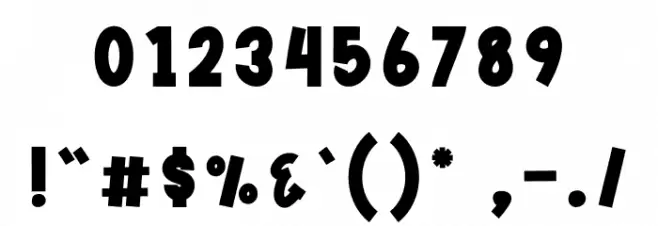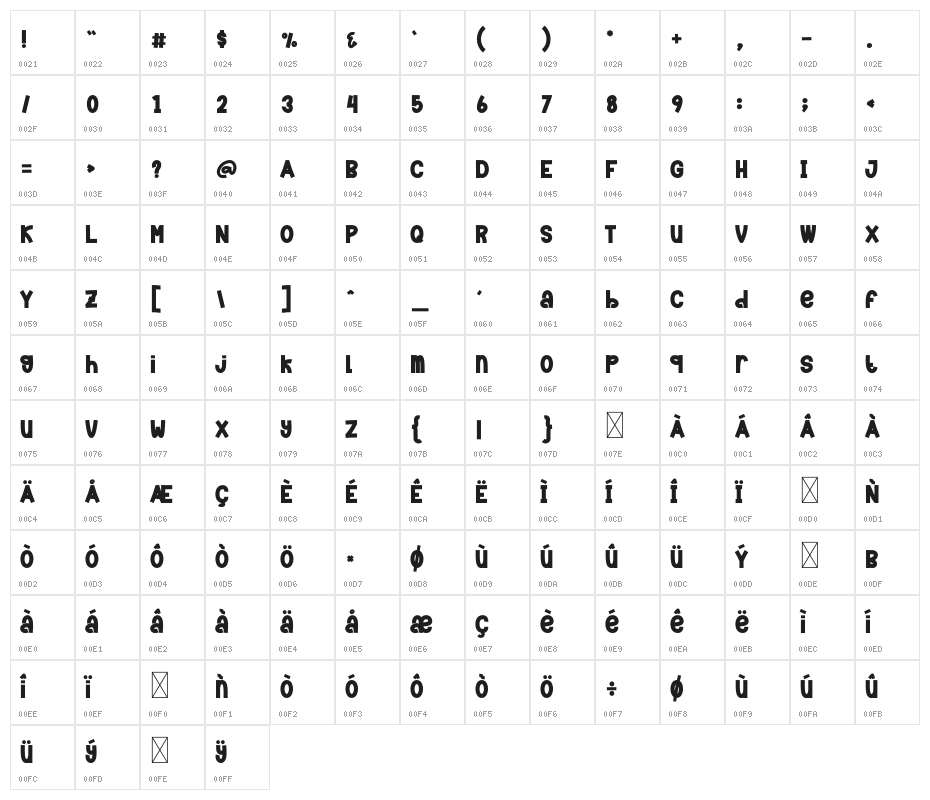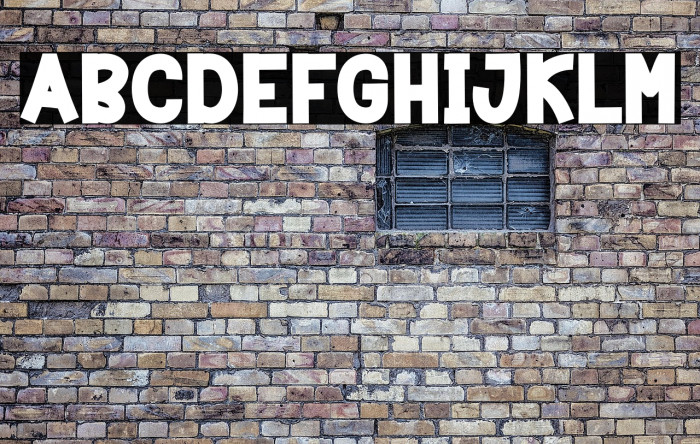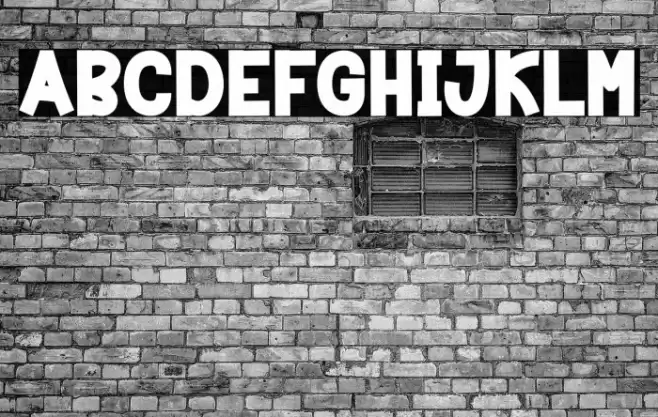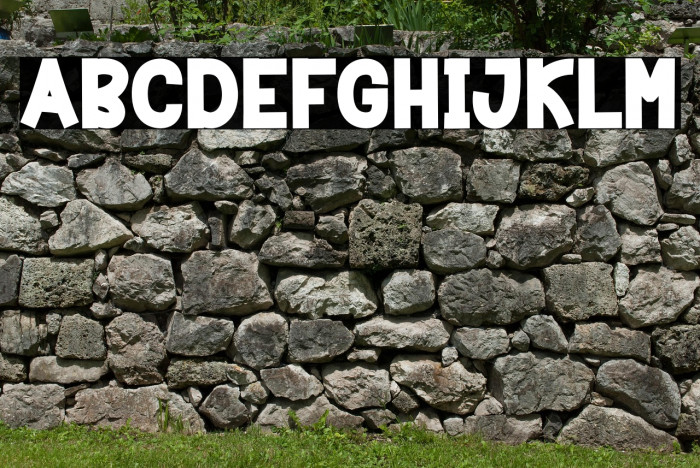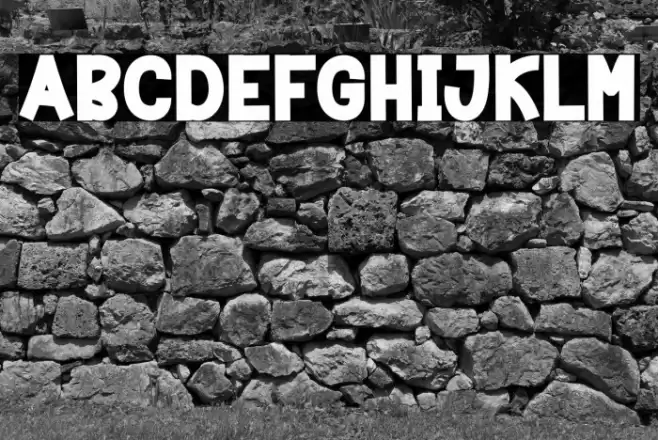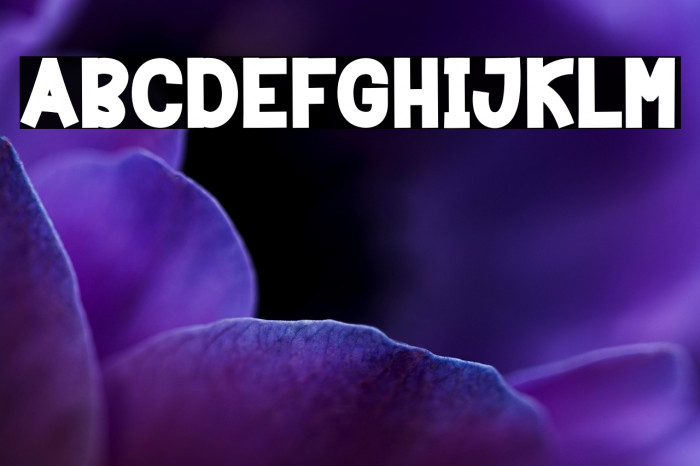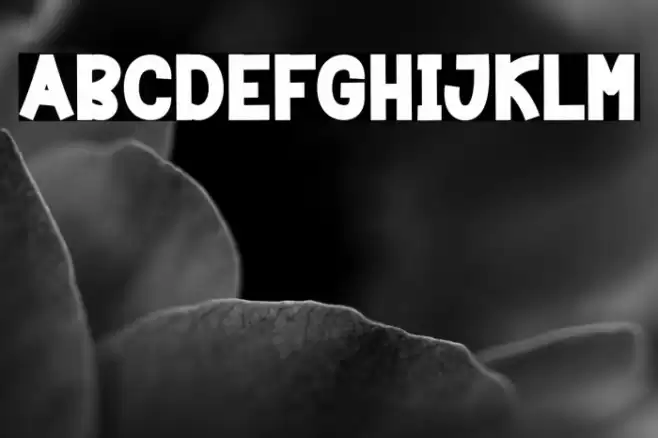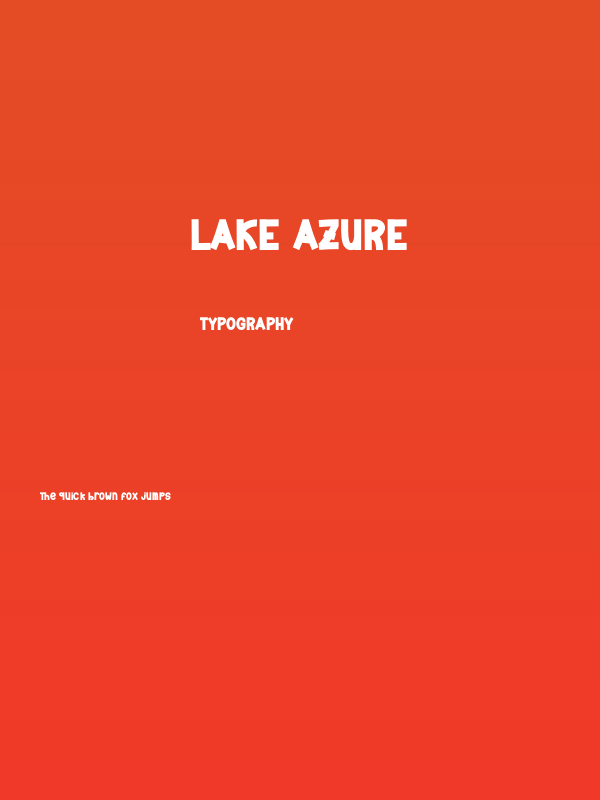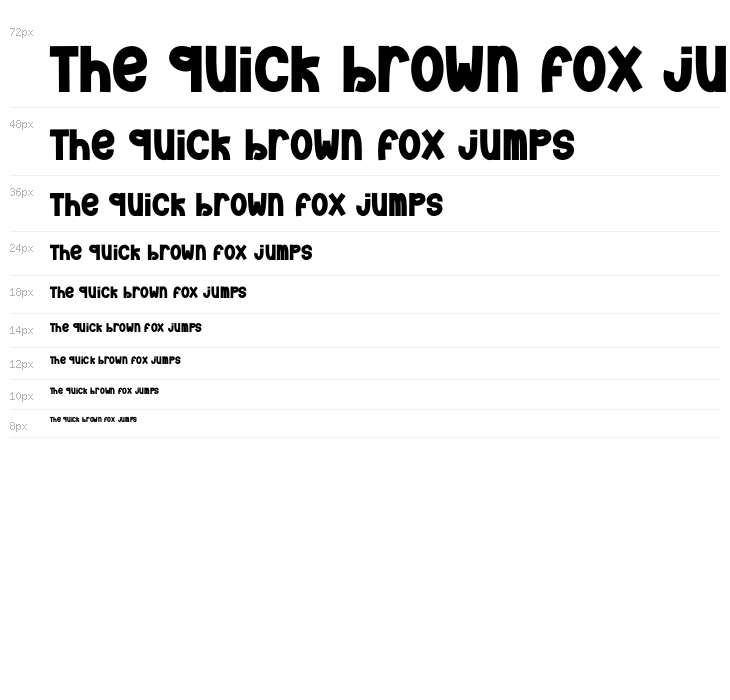
Lake Azure Font
Lake Azure Description
This font features a bold and playful design with a distinctive, quirky style. The characters are thick and rounded, giving them a friendly and approachable appearance. The uppercase and lowercase letters maintain a consistent weight, contributing to a cohesive look. The numerals and special characters are equally bold, ensuring readability and visual impact. The font's unique style is characterized by its exaggerated curves and slightly irregular shapes, adding a touch of whimsy and creativity. This makes it suitable for projects that require a fun and engaging visual element.
| Proposed Projects | Ideal for children's books, playful branding, posters, and creative design projects. |